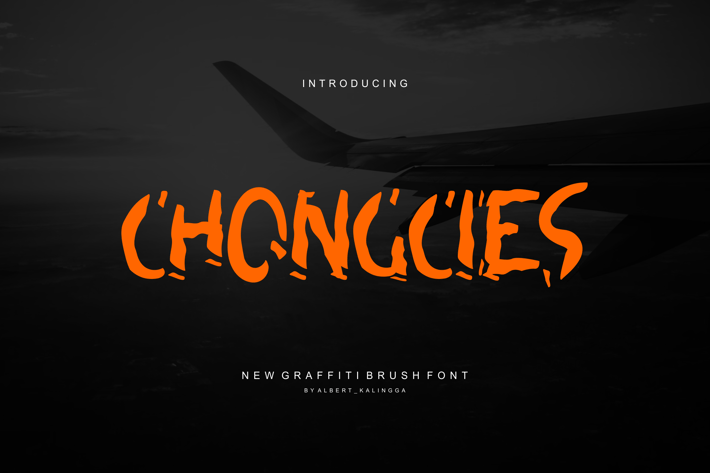
Chongcies Font
Introducing our new product Chongcies Font - Modern Font
Chongcies Font - Modern Font is a bold and authentic display font. The font is suitable for any branding project like logo, esport, and many more. outstanding in a wide range of contexts.